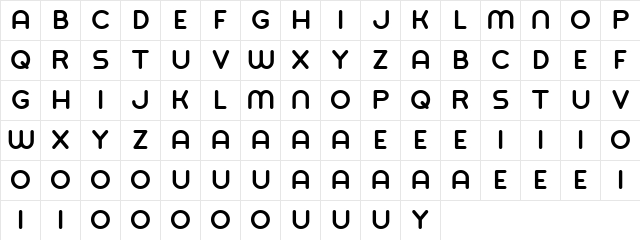
Balat Bold
| Foundry | Krafti Lab |
| Designer | Onur Cem TAN |
Design Context for Balat Typeface
Balat takes a measured approach to typography — its balanced proportions and neutral character make it a reliable workhorse for both digital and print work. The heavy weight commands attention and anchors typographic hierarchies.